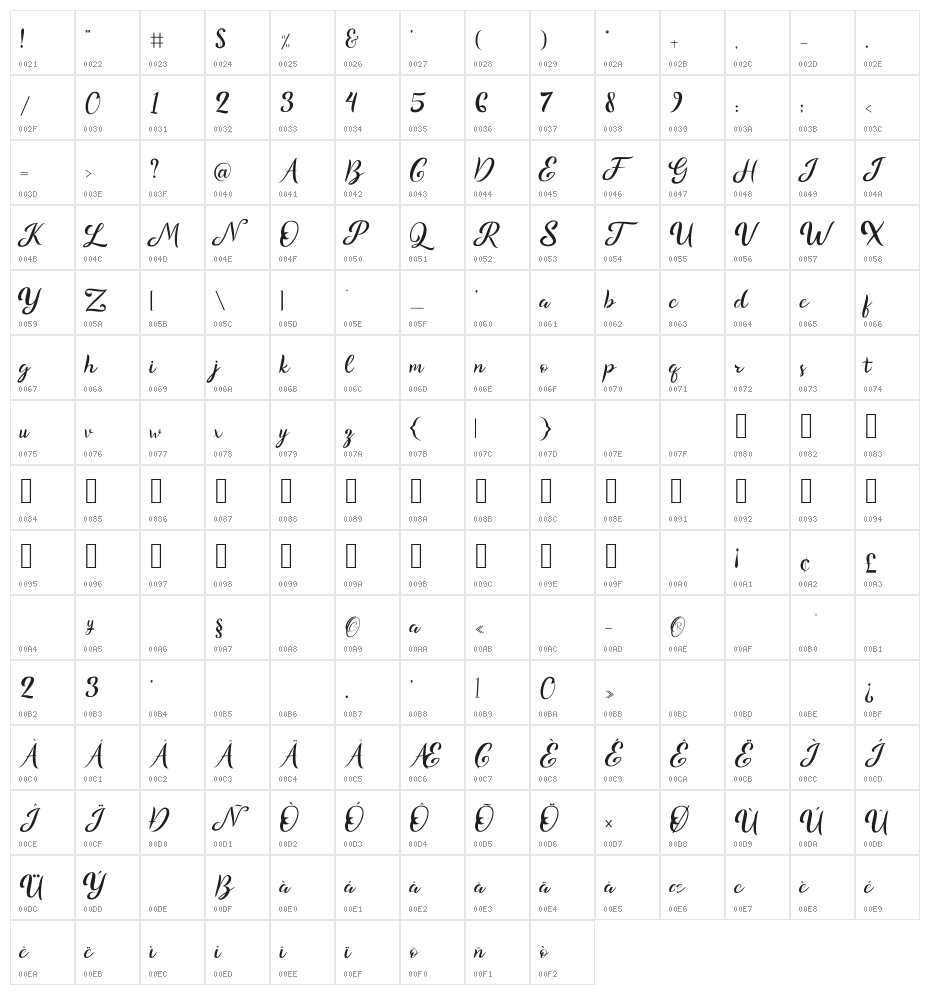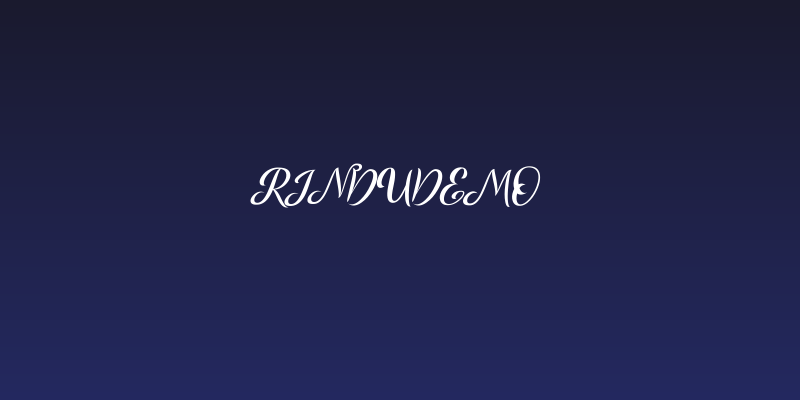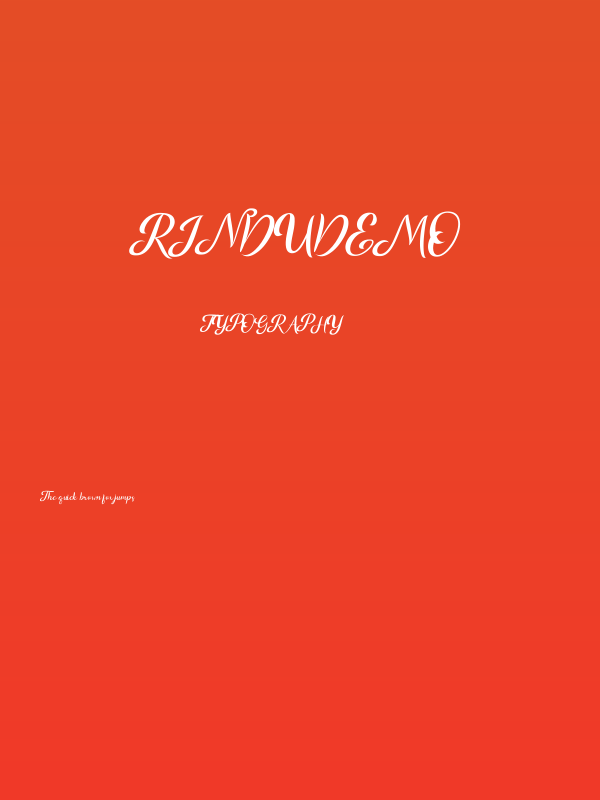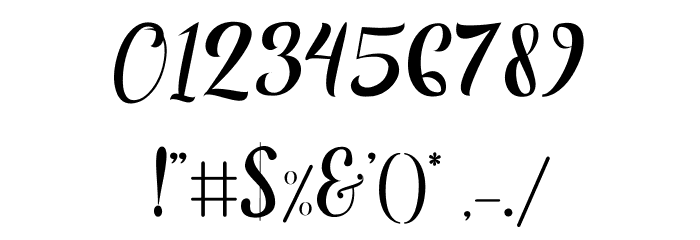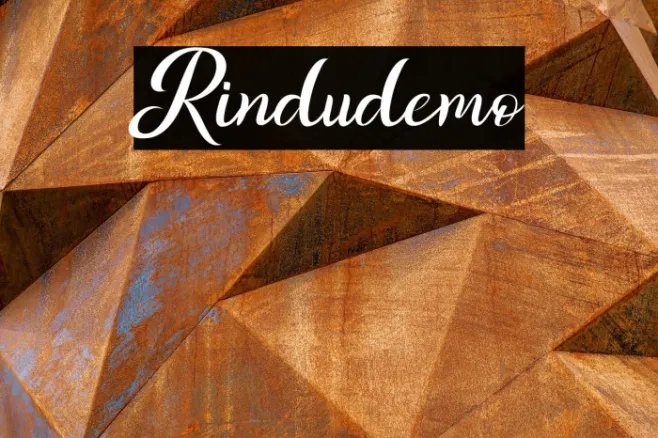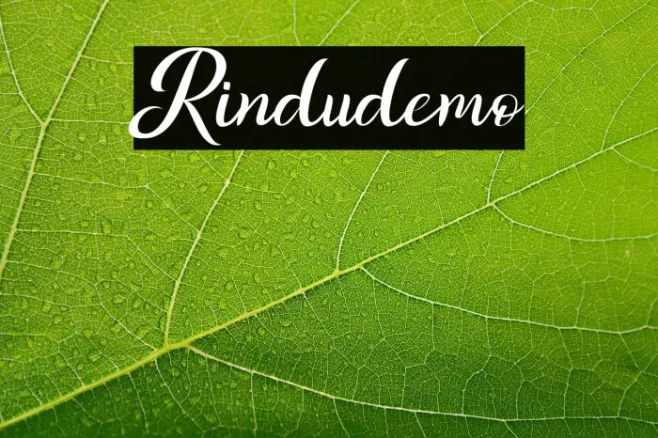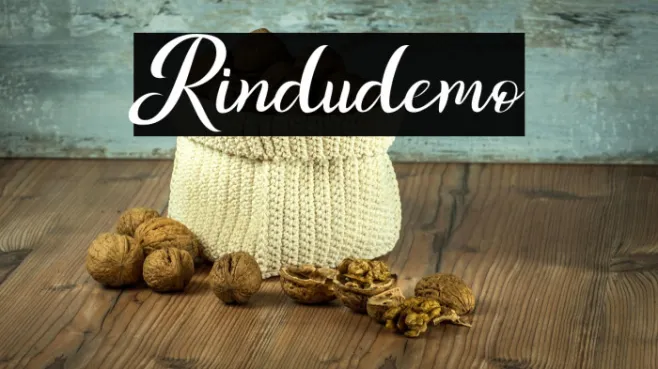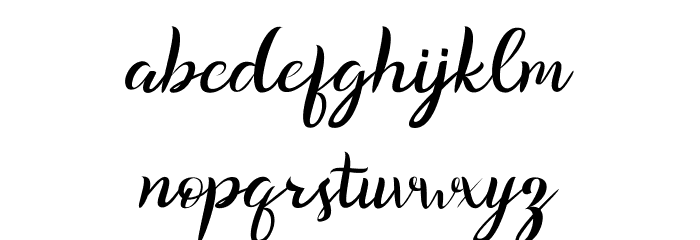
Rindudemo Font
Rindudemo Description
This font features an elegant and flowing script style, characterized by its smooth, cursive strokes and graceful curves. The uppercase letters exhibit a sophisticated flair with extended ascenders and descenders, while the lowercase letters maintain a consistent and harmonious flow. The numerals are designed with a similar fluidity, ensuring a cohesive look across all characters. Special characters are thoughtfully integrated, maintaining the overall aesthetic. This font exudes a sense of elegance and refinement, making it suitable for formal and decorative applications.
| Use Case | Logos, Invitations, Decorative Text |
| Proposed Projects | Ideal for wedding invitations, elegant branding, greeting cards, and decorative signage. |